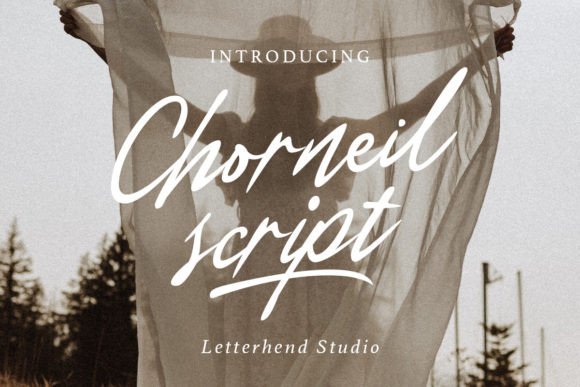
Immerse your designs in a symphony of elegance with Chorneil Script, the captivating script font that exudes casual charm and organic allure. This font is a stroke of creative genius, meticulously crafted to add a touch of individuality and sophistication to your projects. Whether you're designing logos, invitations, labels, magazines, books, greeting cards, packaging, or engaging in fashion, make-up, or stationery design, Chorneil Script will elevate your creations to new heights of visual appeal.
With its easy-to-use PUA encoding, you'll have effortless access to a treasure trove of stunning glyphs and ligatures, empowering you to unleash your creativity and bring your design visions to life. Transform your words into enchanting works of art, captivating your audience with a symphony of flowing strokes and graceful curves.
Chorneil Script is not just a font; it's an invitation to embark on a journey of boundless creativity. Embrace the casual elegance of this script and watch as your designs blossom with a touch of timeless beauty. Whether you're a seasoned designer or just starting your creative journey, Chorneil Script is your perfect companion, guiding you towards design excellence.
Let Chorneil Script ignite your imagination and transform your projects into masterpieces of visual communication. Its versatility and captivating charm will leave an indelible mark on your audience, ensuring your designs stand out from the crowd. Embrace the power of Chorneil Script and unlock a world of creative possibilities.